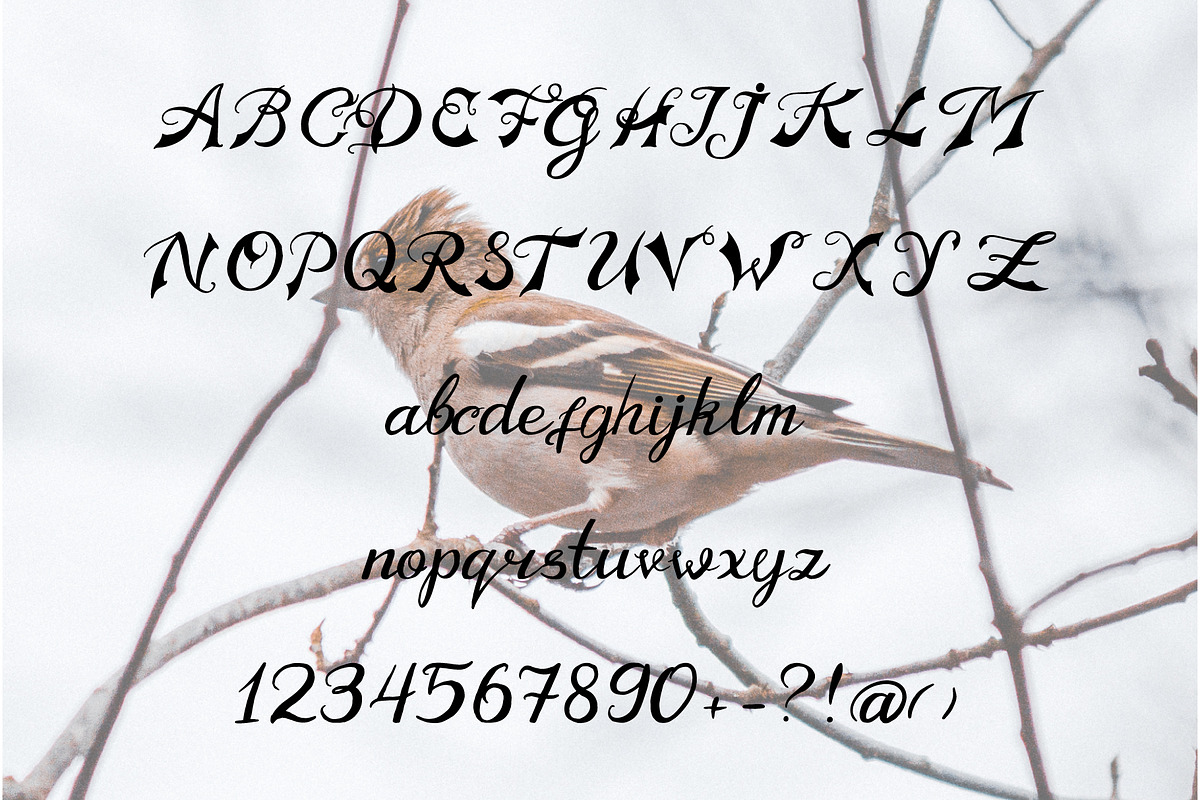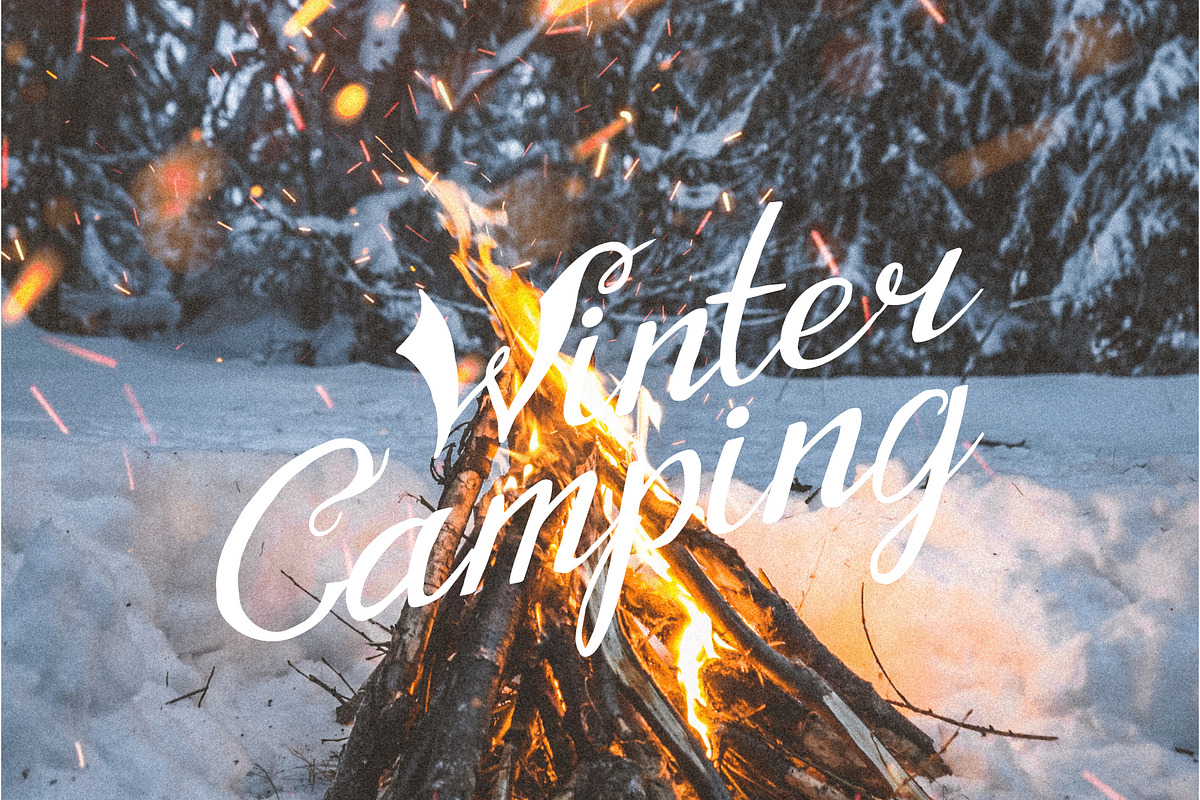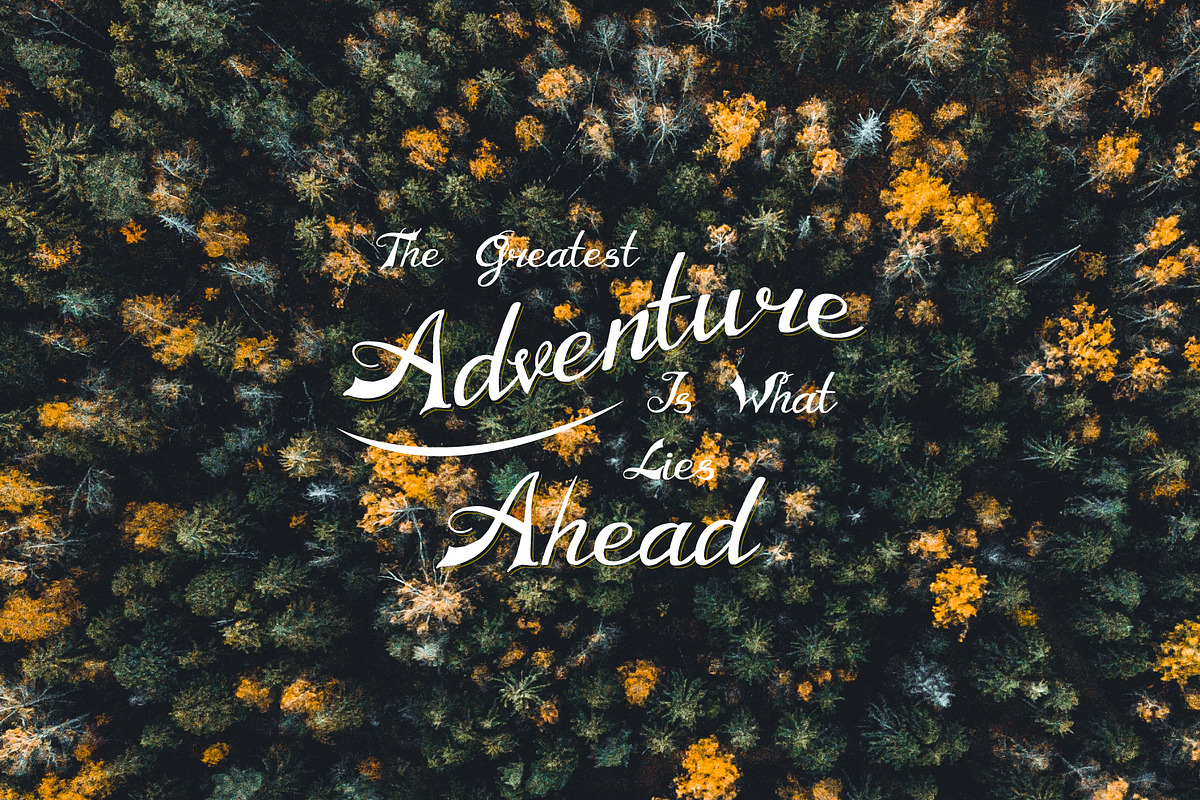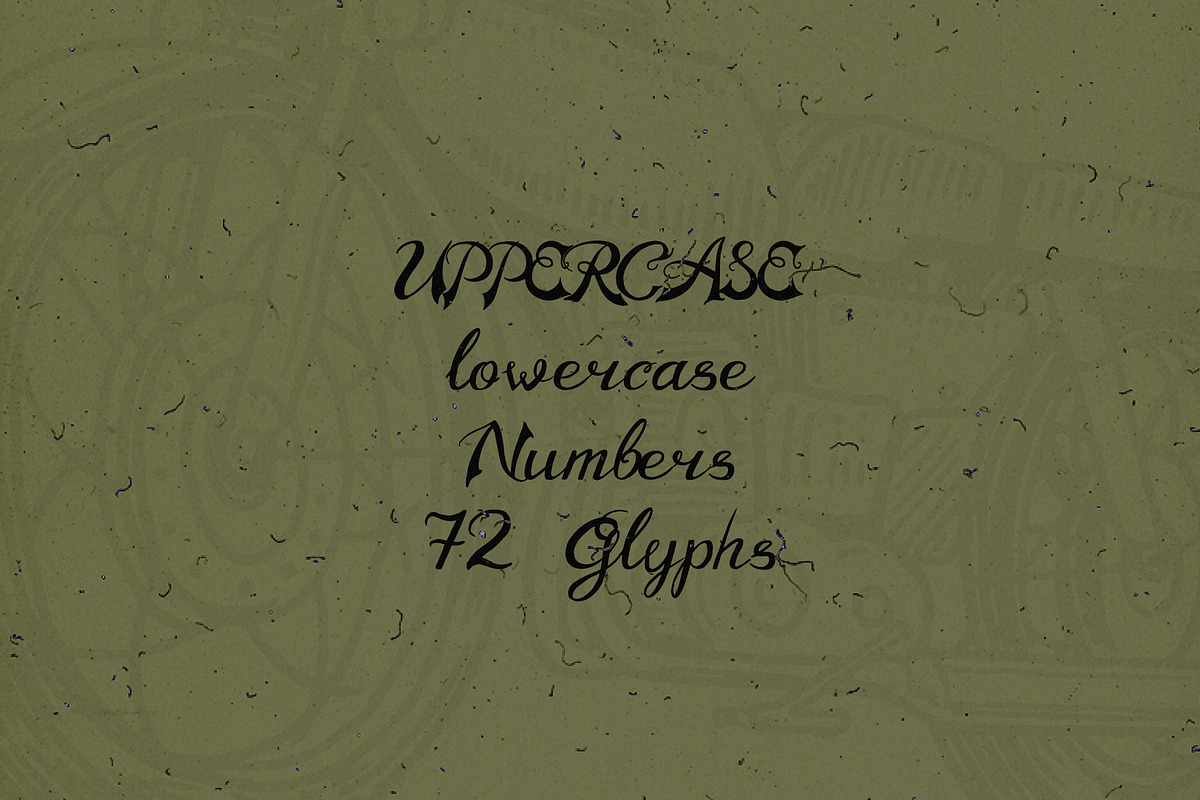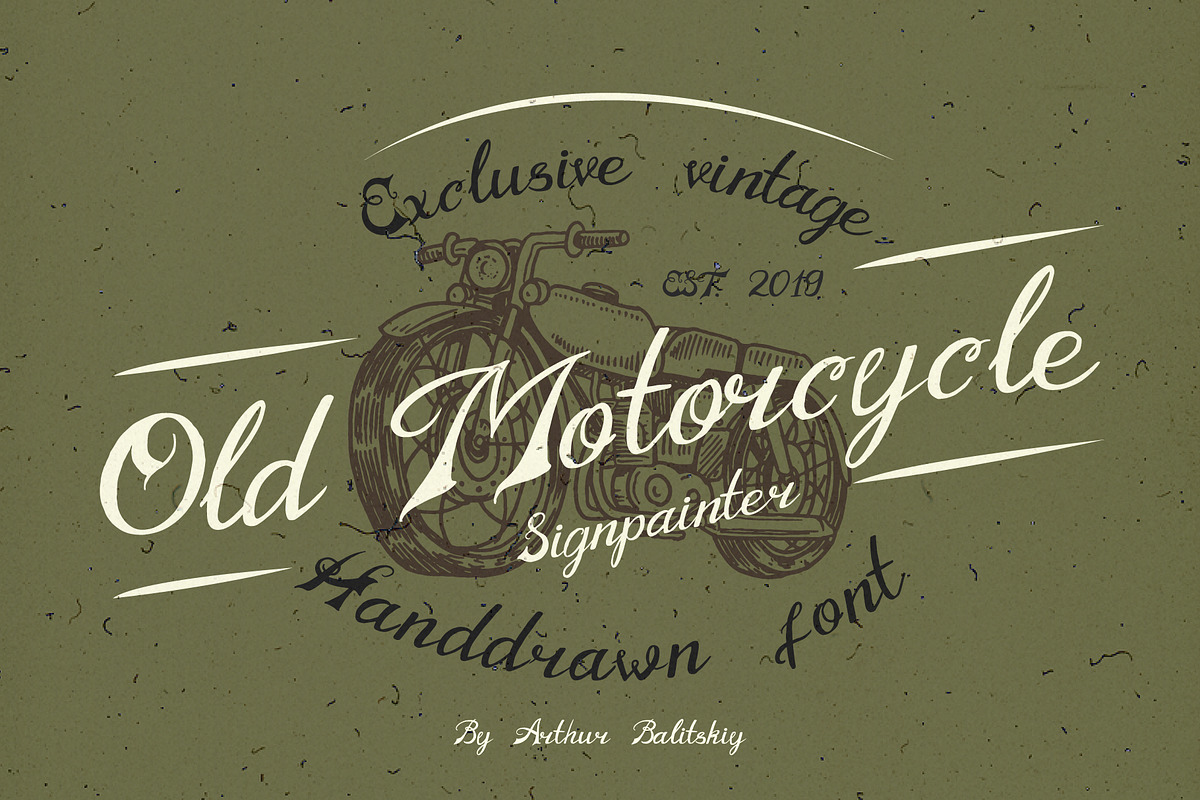
Old Motorcycle handwritten font
72 Glyphs / UPPERCASE, Lowercase , Numbers . and symbols ( ) + - ? ! @
Font is not looking good when you use all uppercase characters in one word. For better result use big first letter and lowercase others. Working on Mac Os and Windows also in Photoshop and Illustrator as well.
Old Motorcycle handwritten font by Arthur Balitskiy fits naturally into Branding, posters, packaging, typography.